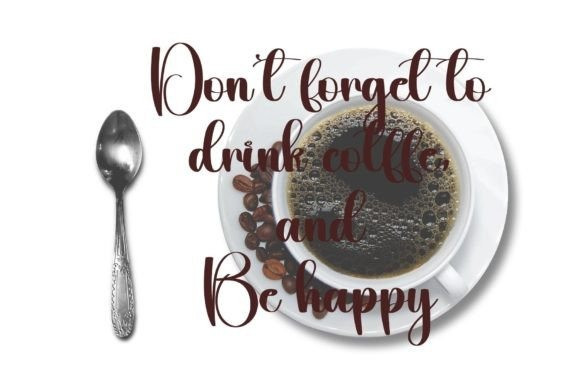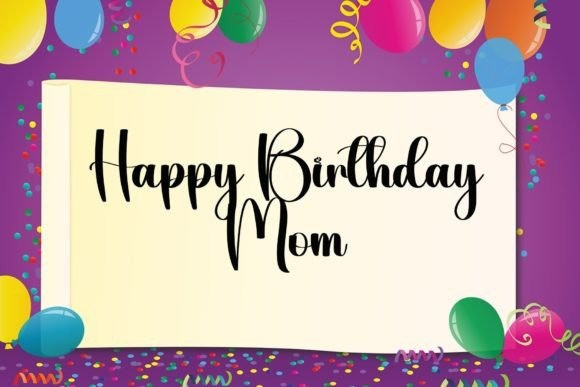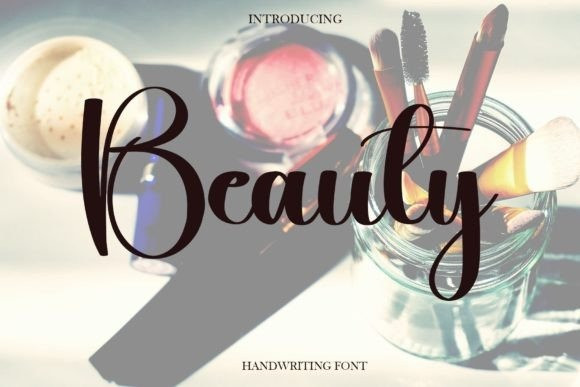
Beauty Script Typeface
Beauty Script Typeface is a sweet handwritten font. Featuring characters that dance along the baseline, this font will add a luxury spark to any design project you wish to create!